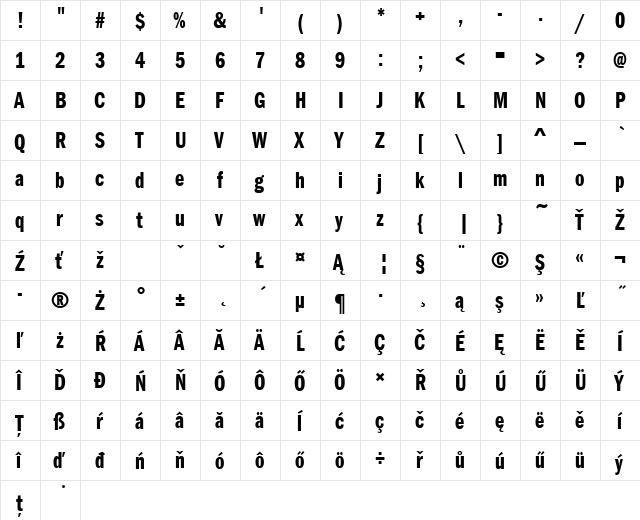
FranklinGotItcTEEDemCom Regular
Design Context for FranklinGotItcTEEDemCom Typeface
FranklinGotItcTEEDemCom is a composed and adaptable typeface that performs quietly and consistently across a wide range of design contexts.